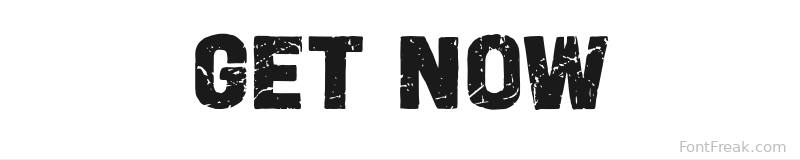
Get Now
About Get Now
Introducing the "Get Now" font by Syaf Rizal, a striking display typeface that embodies a bold and gritty aesthetic. This font, categorized as a decorative typeface, features a unique distressed texture that gives it an organic, hand-crafted feel. The robust stroke weight creates a strong visual impact, while the subtle variations in contrast add depth and character, making it perfect for projects that require attention-grabbing typography. The spacing between the letters enhances readability while maintaining an edgy appearance, making it suitable for various design applications.
The "Get Now" font excels in several specific use cases. It is ideal for creating eye-catching movie posters, where its bold presence can convey excitement and energy. Additionally, this font works wonderfully for promotional materials, such as flyers and advertisements, capturing the audience's attention with its distinctive style. It is also a great choice for restaurant menus, particularly for establishments that want to emphasize a casual, modern vibe. Furthermore, the font can be effectively utilized in social media graphics, helping content creators stand out in a crowded digital landscape.
Targeting graphic designers, small business owners, and content creators, the "Get Now" font is a versatile asset for anyone looking to enhance their visual communication. Its unique characteristics cater to projects that require a touch of personality and flair, making it a popular choice among creatives.
In conclusion, the "Get Now" font stands out not only for its bold design but also for its ability to convey a sense of urgency and excitement. With its free download option, this font is an accessible choice for anyone looking to elevate their design projects. Don’t miss out on the opportunity to incorporate this captivating typeface into your work—Get Now font free download is just a click away.